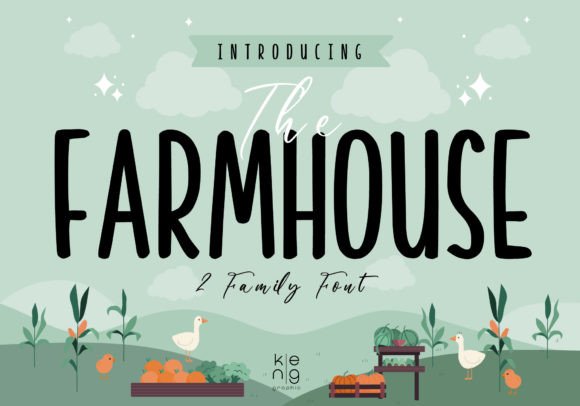
Are you in search of the perfect font to make your modern logo stand out? Look no further than The Farmhouse Font! This display font, created by Keng Graphic, packs a powerful punch with its unique handwritten style.
With The Farmhouse, you can be sure that anything written in this font will be instantly recognizable and will grab the attention of your audience. This font is perfect for a variety of uses, including comic book style, online games, cards, love shirts, posters, movie titles, and eye-catching social media posts.
What sets The Farmhouse apart from other display fonts is its youthful and courageous energy. It exudes a sense of vibrancy and life that will captivate anyone who lays eyes on it. Plus, its versatility makes it an excellent choice for any project that requires a touch of personality and character.
Not only is The Farmhouse visually striking, but it is also incredibly easy to read. Its clean lines and balanced proportions make it a pleasure to work with, and its bold and confident strokes ensure that your message will be delivered loud and clear.
In short, The Farmhouse Font is the perfect choice for anyone looking to make a bold statement with their branding or design work. Its unique style, energy, and readability make it a standout choice in the crowded world of display fonts. Try it out today and see for yourself why The Farmhouse is the best font for a modern logo.